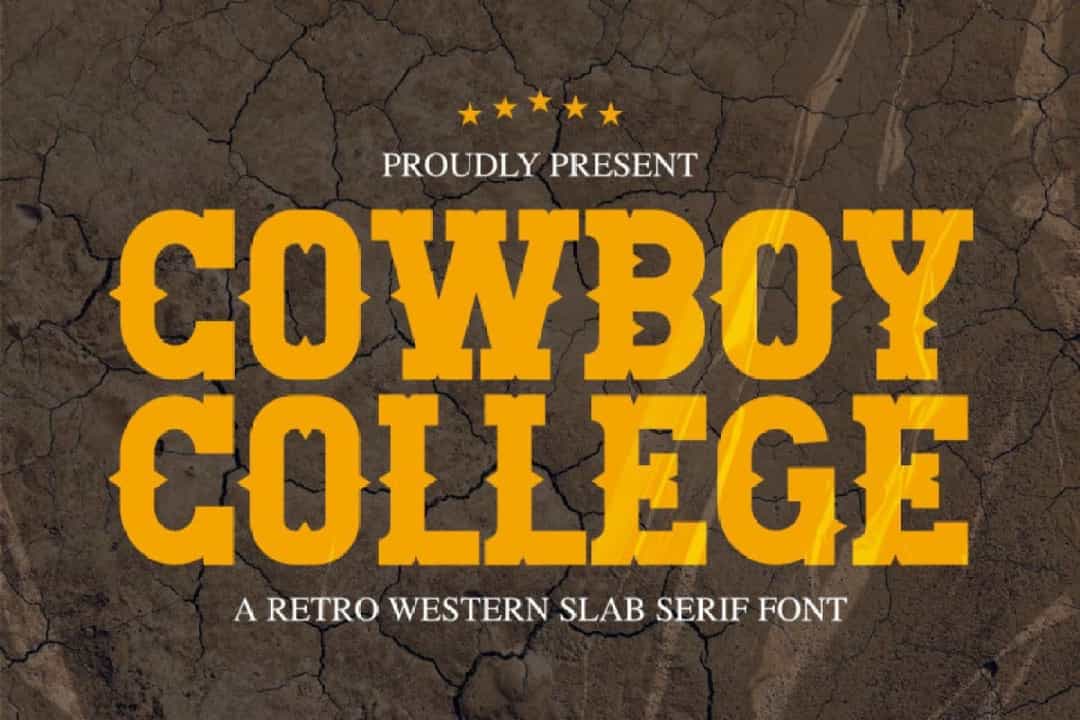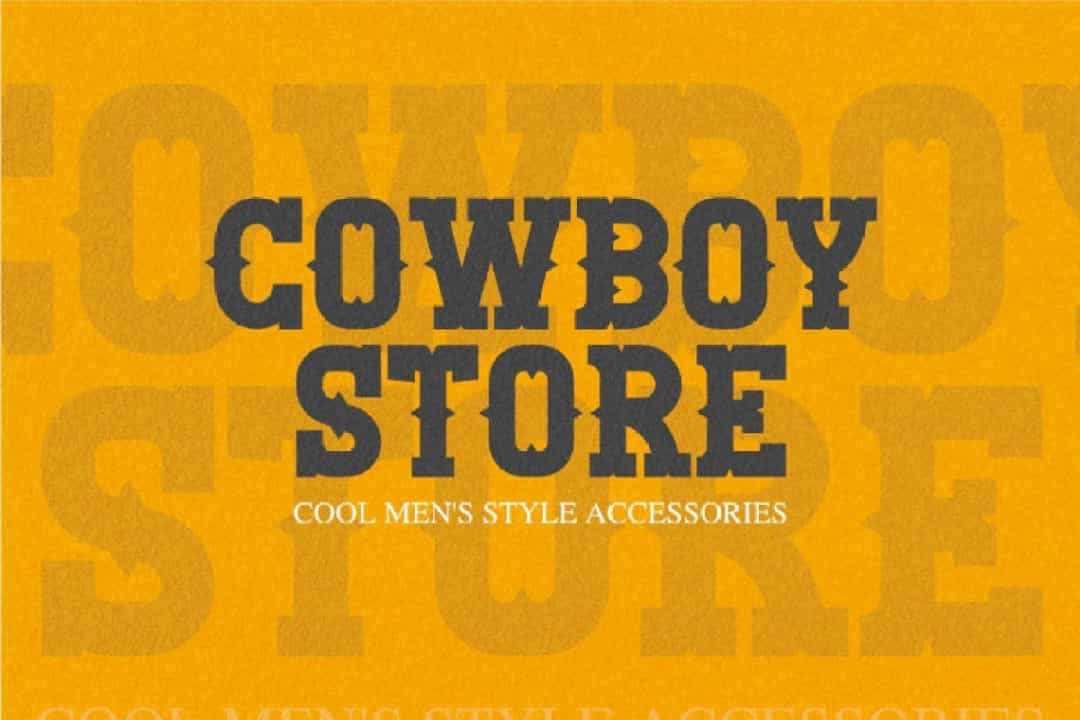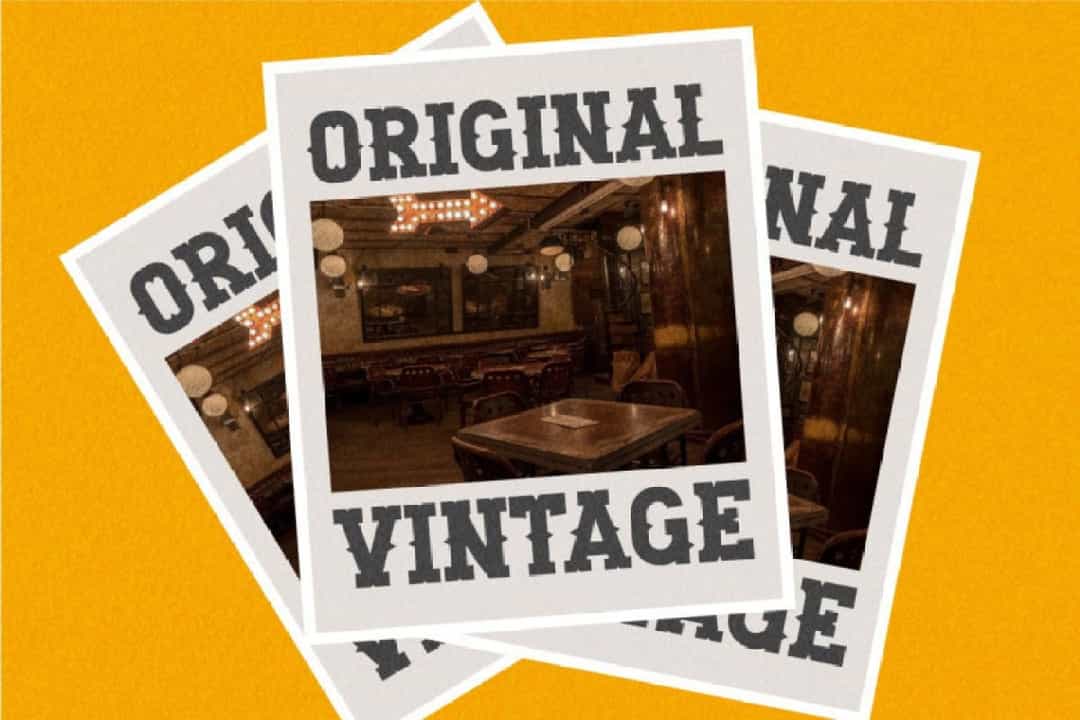
Cowboy College is an amazing Retro Western decorative slab serif font suitable for crafting, labels and quotes as well as SVG logotypes, decorations, books, labels, T-shirts book covers posters web wall art stickers as well as stickers or other creative uses.